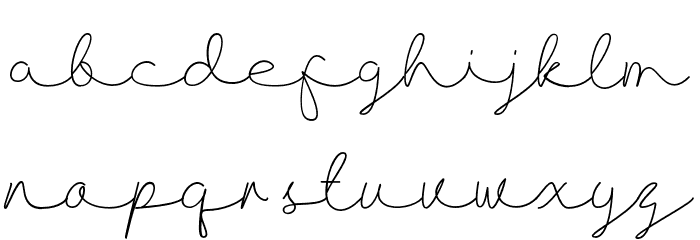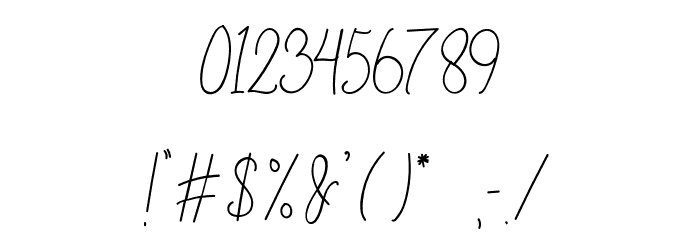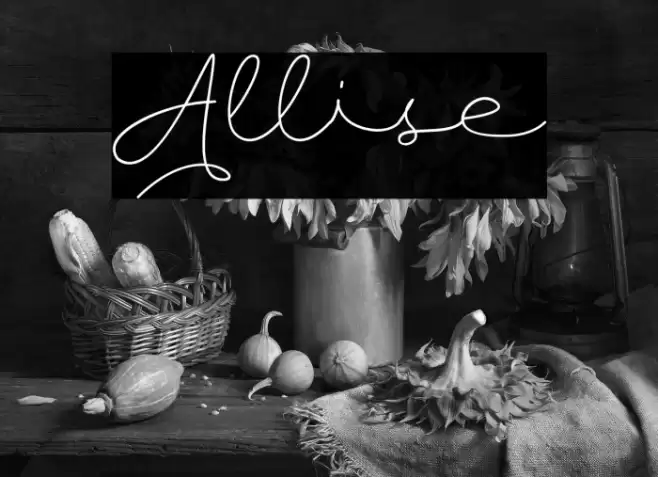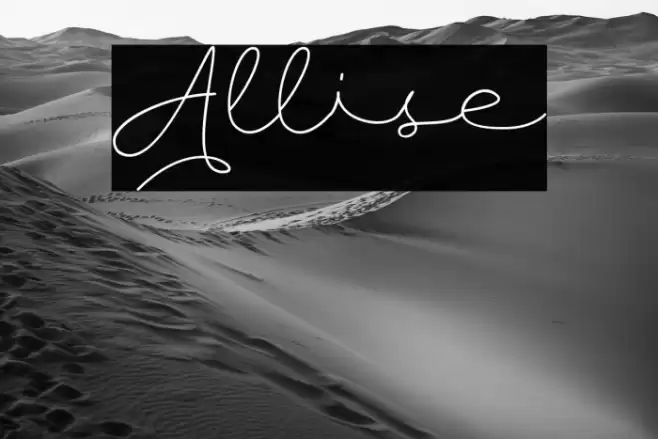
Allise Font
This font features a delicate and elegant script style, characterized by its flowing, cursive letterforms. The uppercase letters are slightly more ornate, with subtle flourishes that add a touch of sophistication. The lowercase letters maintain a consistent flow, enhancing readability while retaining a graceful appearance. Numbers and special characters are designed to match the overall aesthetic, ensuring a cohesive look across all text. The thin strokes and gentle curves give it a refined and airy feel, making it suitable for projects that require a touch of elegance and charm.
A delicate and elegant script font with flowing, cursive letterforms.
- Proposed Projects: Ideal for wedding invitations, greeting cards, elegant branding, and personal stationery.
- Category: Script
- Weight: Light
- Overall Style: Elegant
- Use Case: Logos, Invitations, Personal Stationery